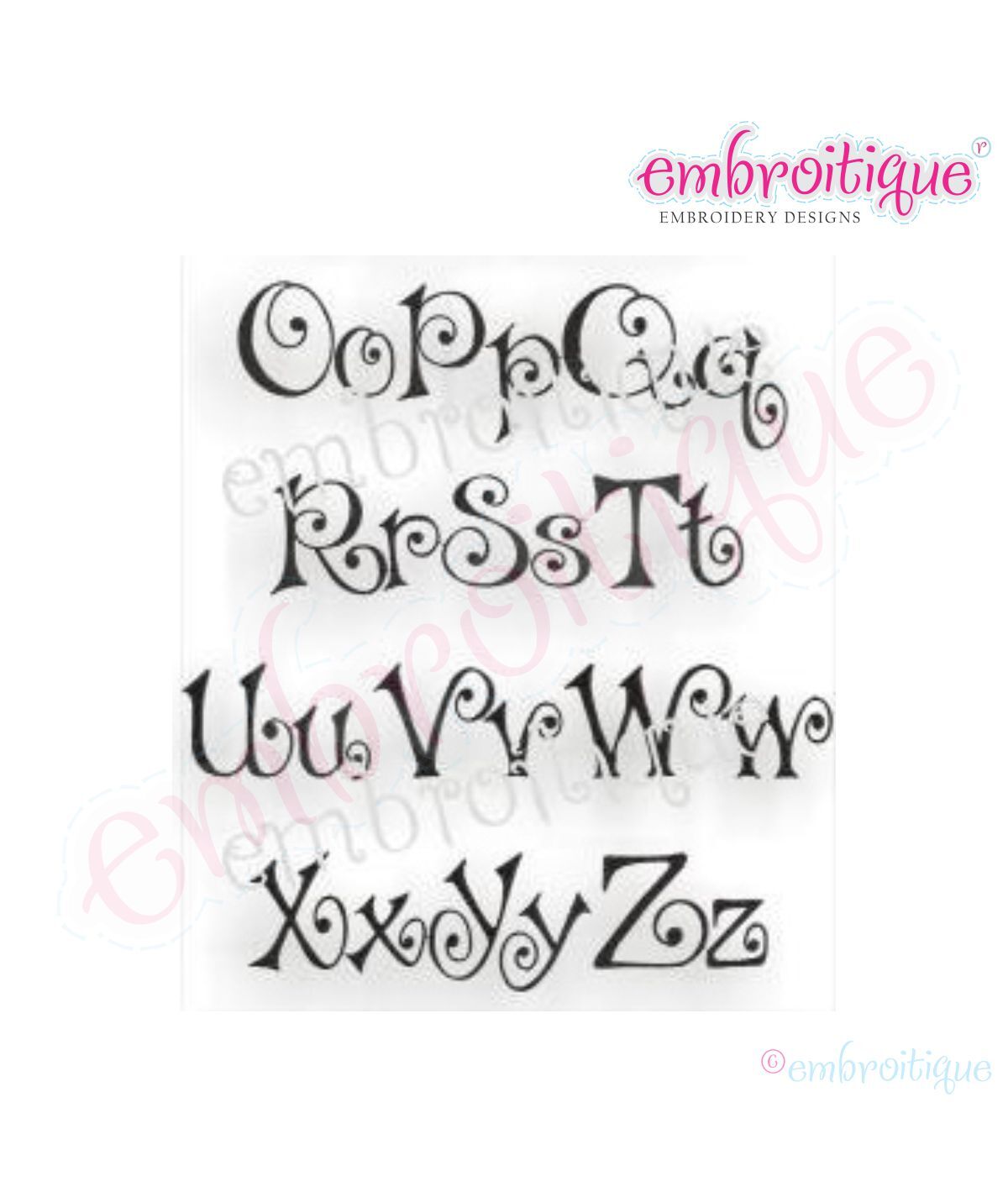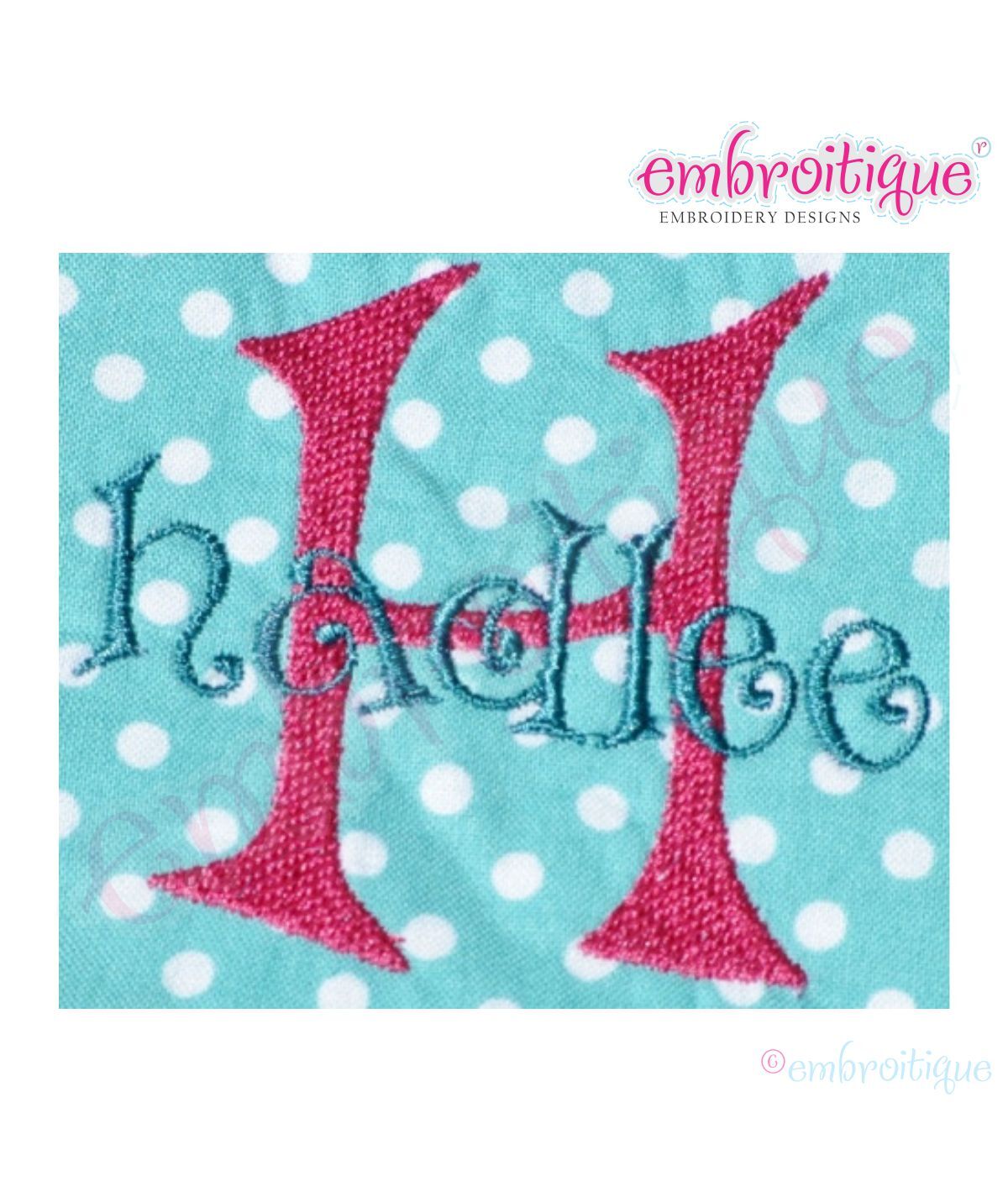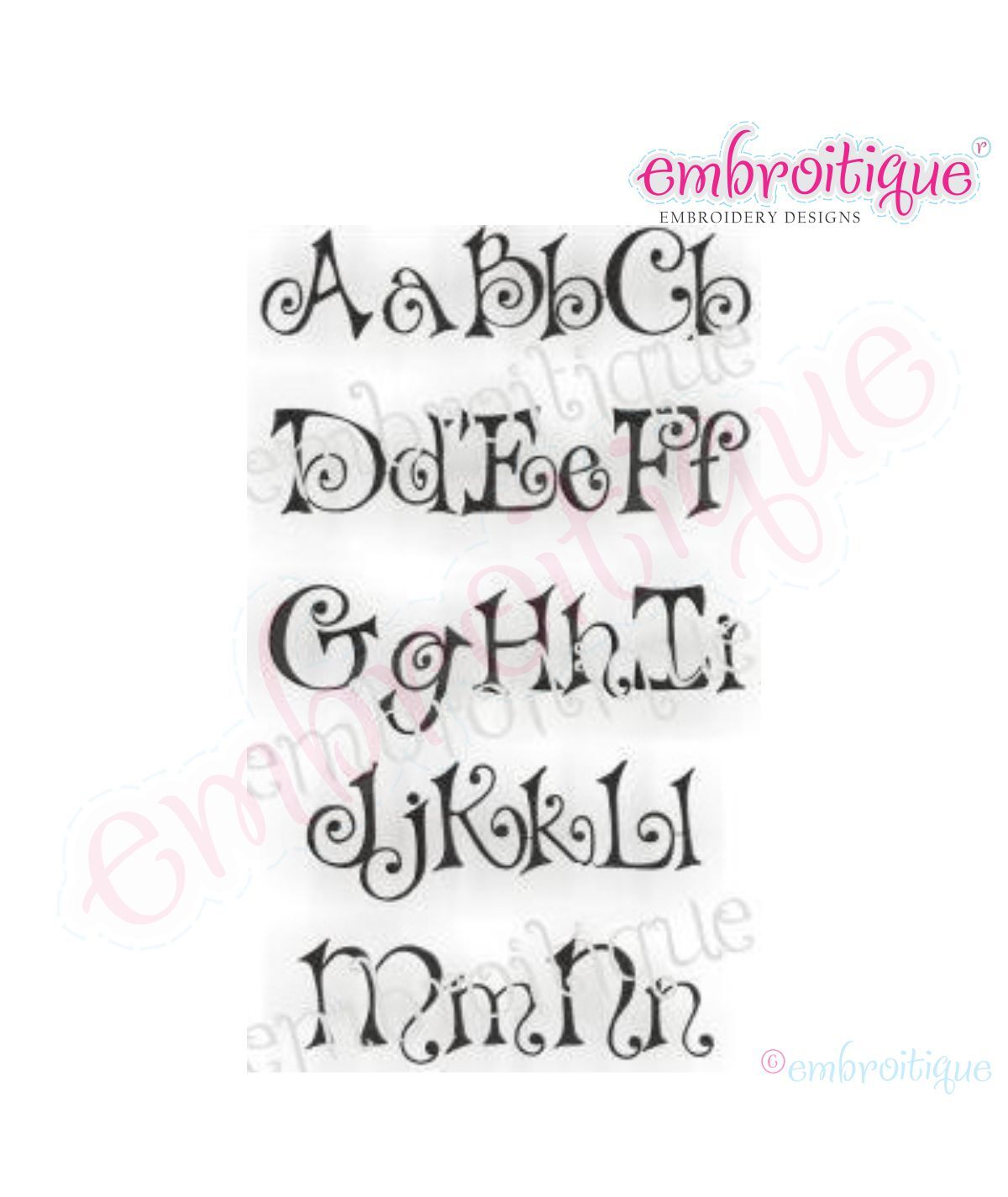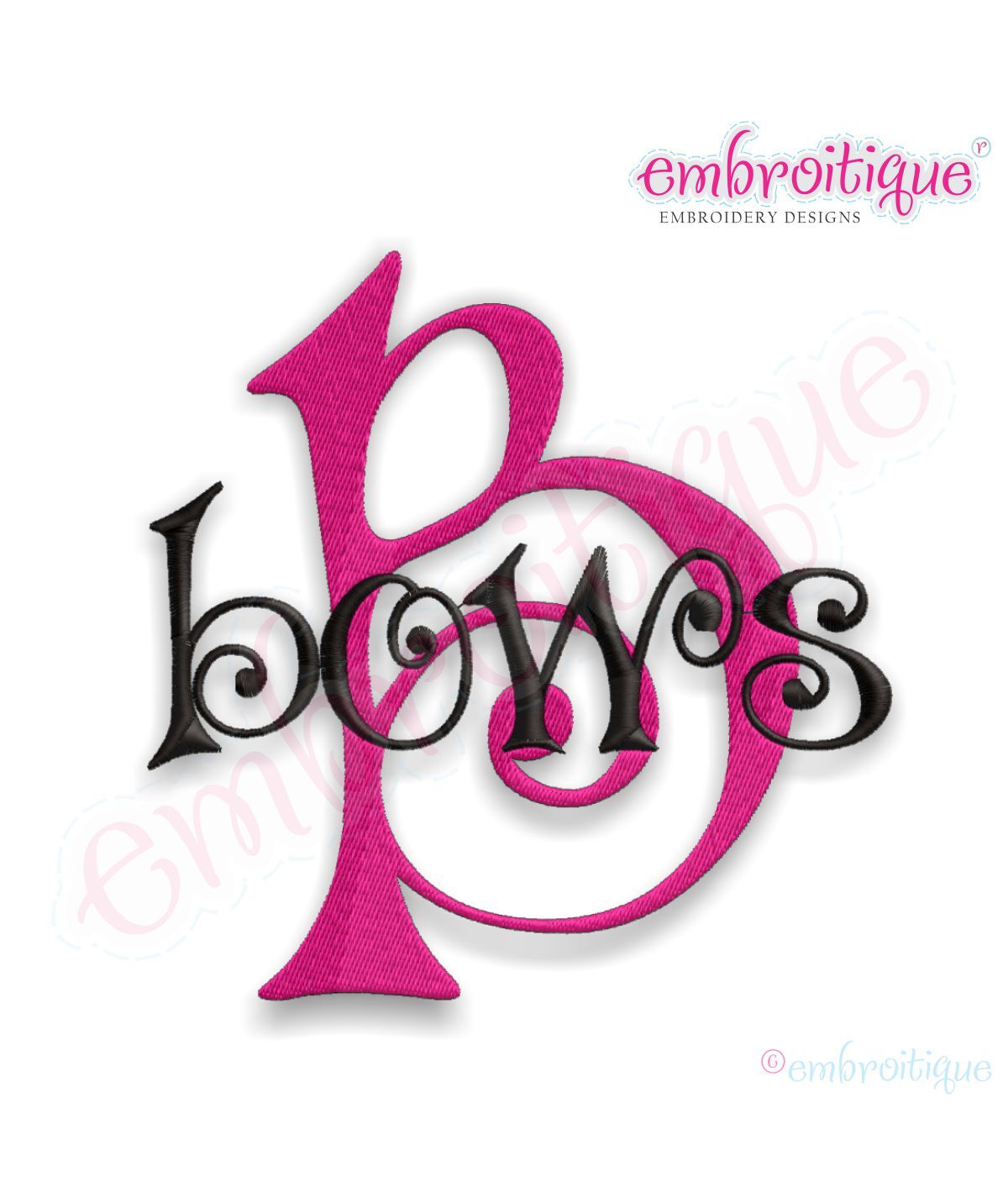
Bows Curly Whimsical Embroidery Alphabet Monogram Set
A-Z Upper and Lower case - as well as numbers 0-9
This is a PERFECT set for stacked monogram designs (as shown).